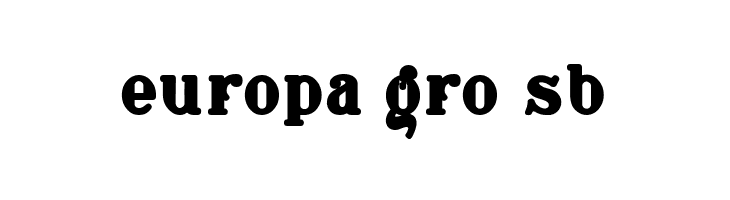
A modern italic font with elegant slant and subtle stroke contrast.
A modern, high-contrast font with geometric and organic elements.
A 3D italic font with outlined characters and a modern, dynamic style.
A bold, outlined font with a modern, geometric style.
A bold, shadowed font with a three-dimensional geometric style.
A bold, geometric font with an industrial and modern aesthetic.
An elegant and flowing script font with intricate loops and swashes.
A traditional script font with elegant, flowing lines and ornate details.
A bold, italicized font with dynamic and expressive letterforms.
A bold, tall serif font with strong vertical emphasis and pronounced serifs.
A tall, narrow, and modern font with clean lines and a sleek aesthetic.
A bold, condensed sans-serif font with a modern and sleek appearance.
A bold, shadowed font with a modern and decorative style.
A bold, wide sans-serif font with a modern, geometric design.
A bold, condensed font with a modern and sleek appearance.
A tall, narrow, and modern font with a geometric style.
A bold, condensed typeface with thick, uniform strokes and minimal spacing.
A bold serif font with a modern yet classic appeal.
A bold, outlined font with a modern and geometric style.
A futuristic, geometric font with hollow, outlined characters.
A modern, geometric font with bold, monospaced characters and a futuristic aesthetic.
A bold, playful font with thick strokes and rounded edges, ideal for impactful designs.
A whimsical and playful font with curly, looping strokes and decorative flair.
A bold, textured font with a distressed, weathered appearance.